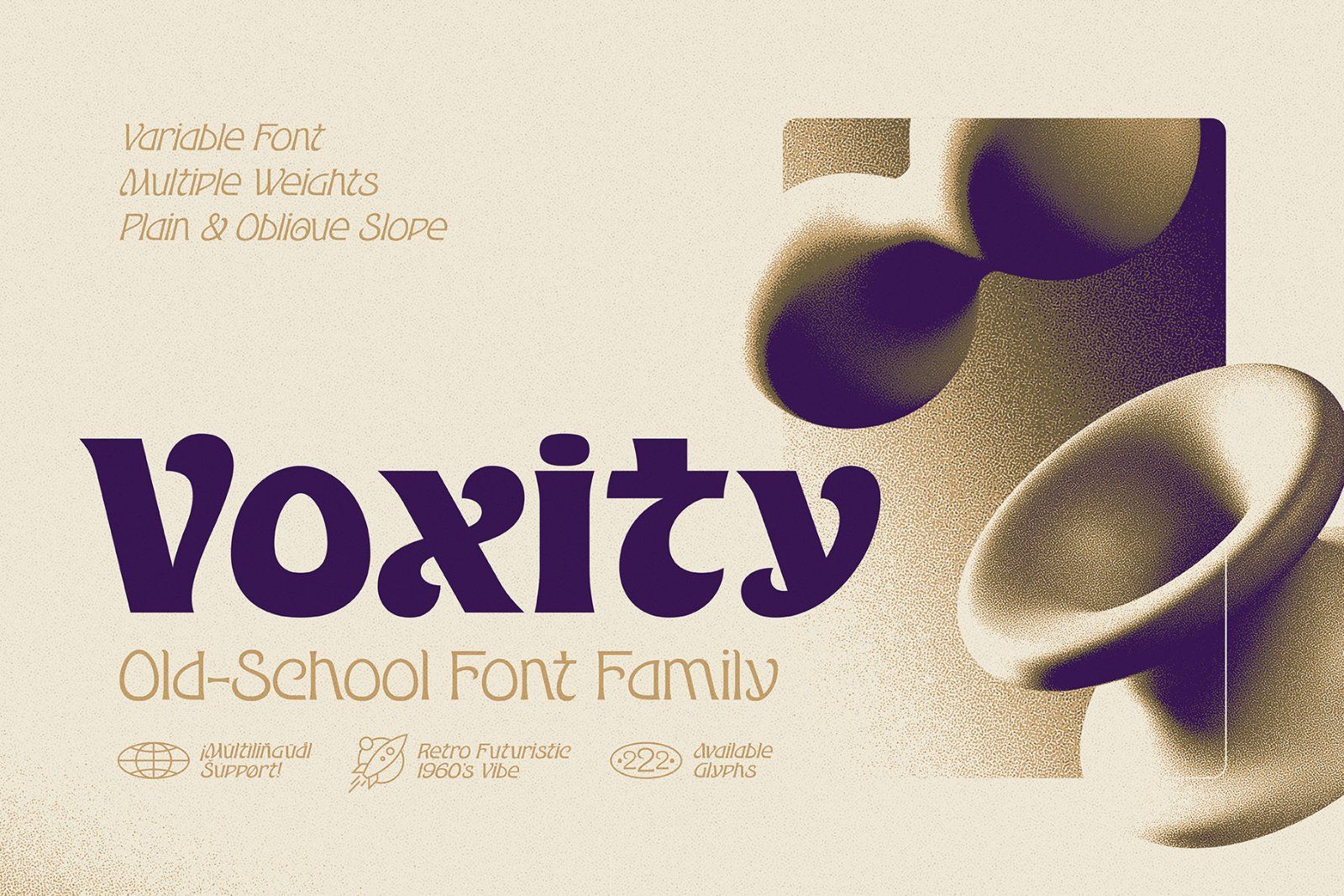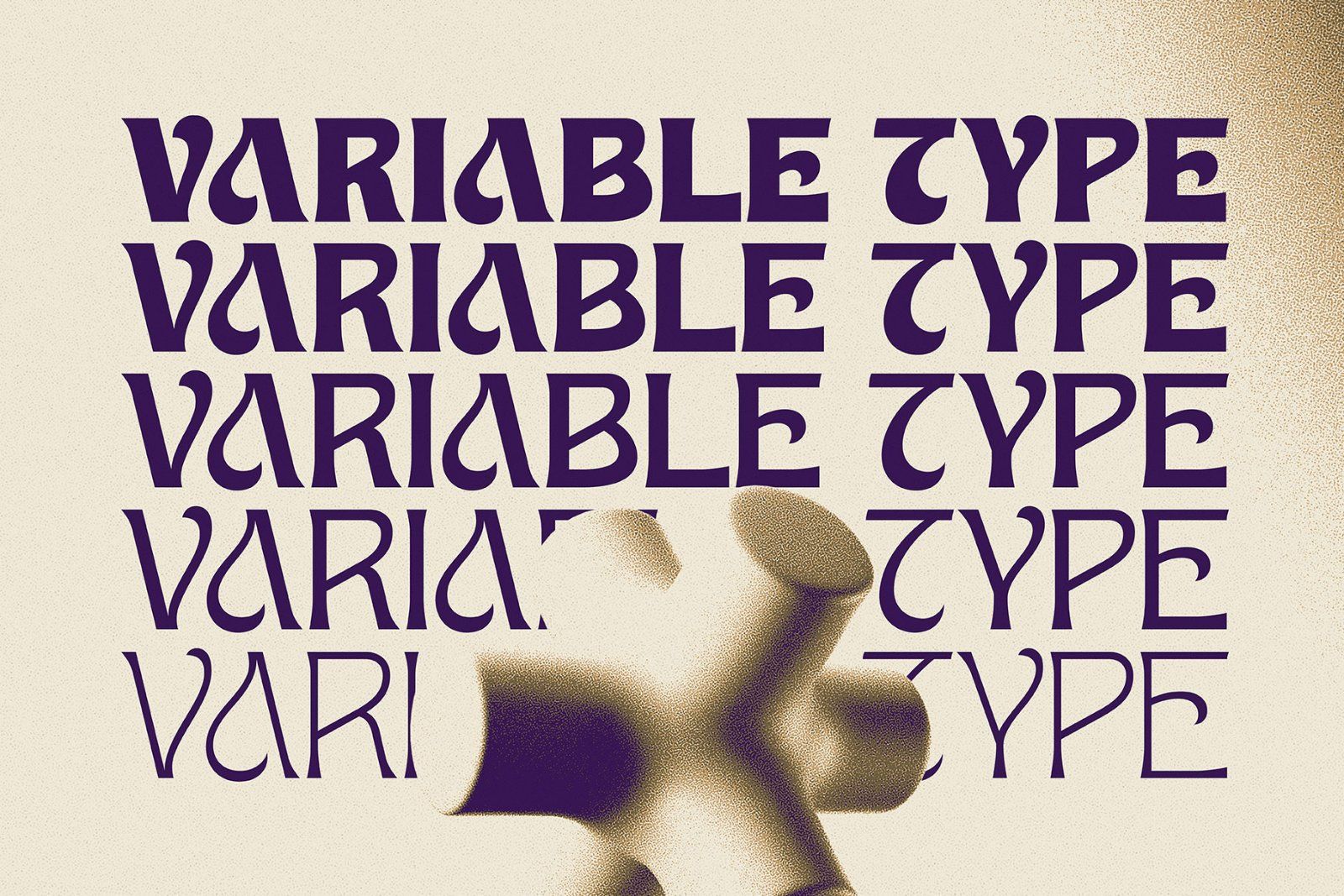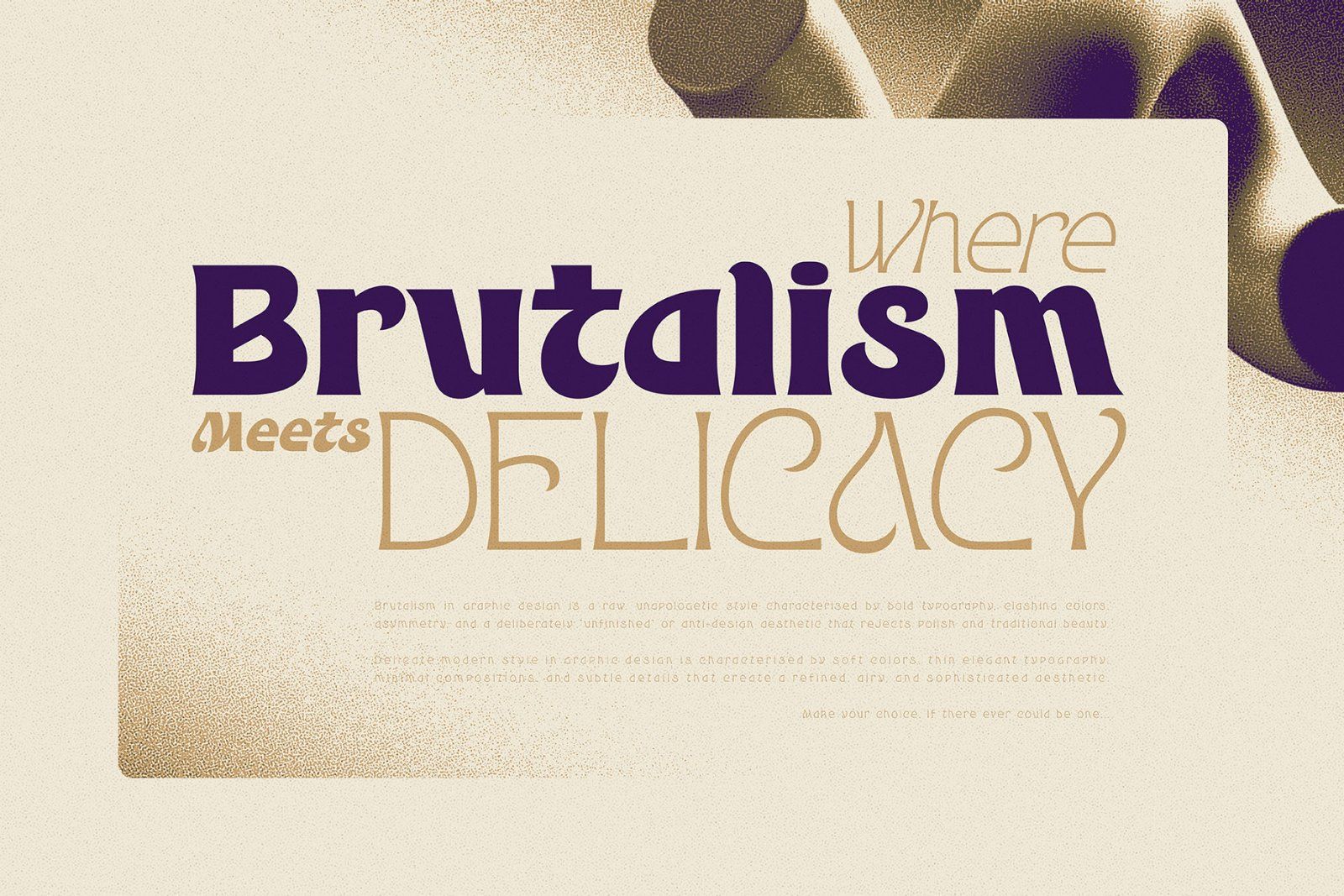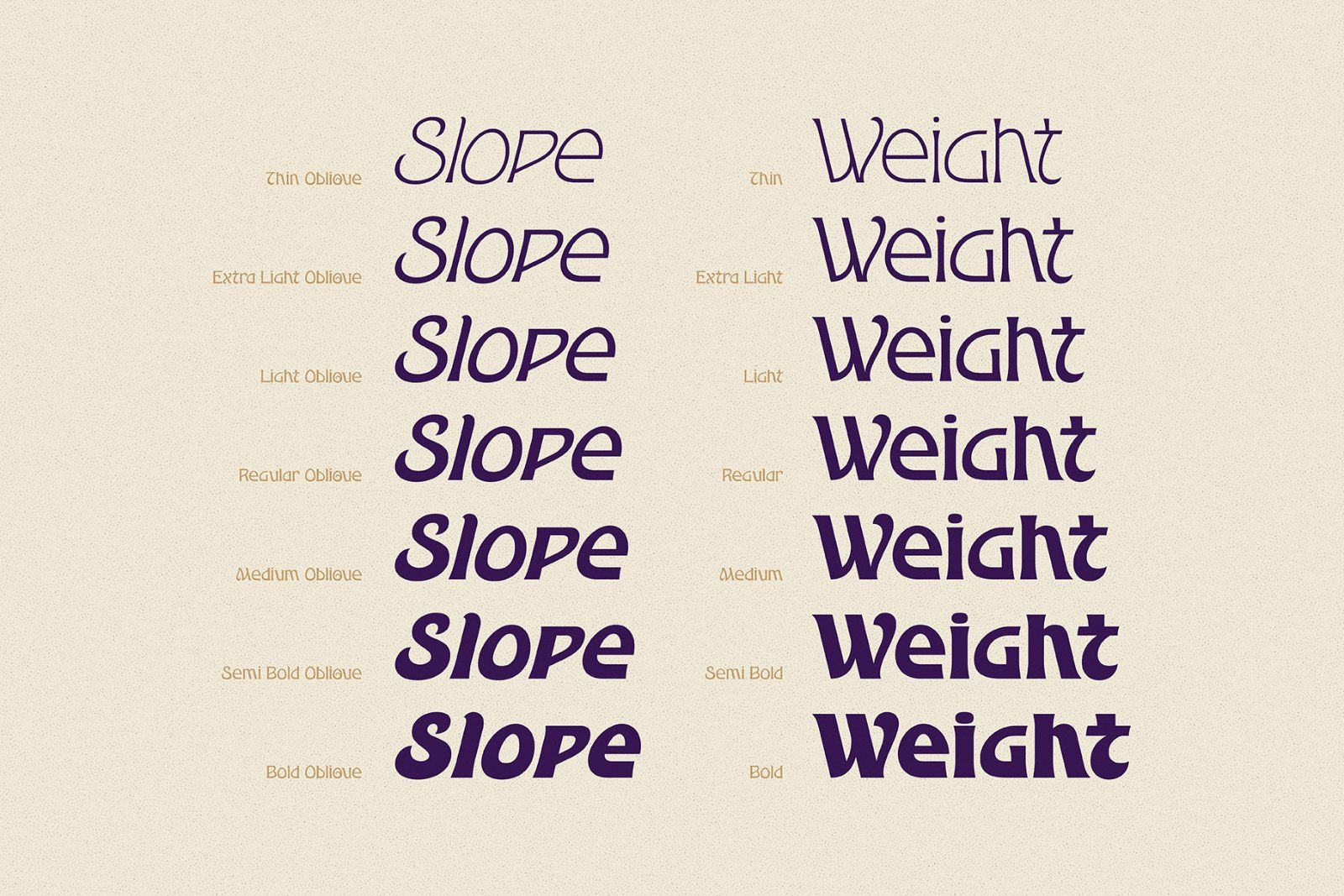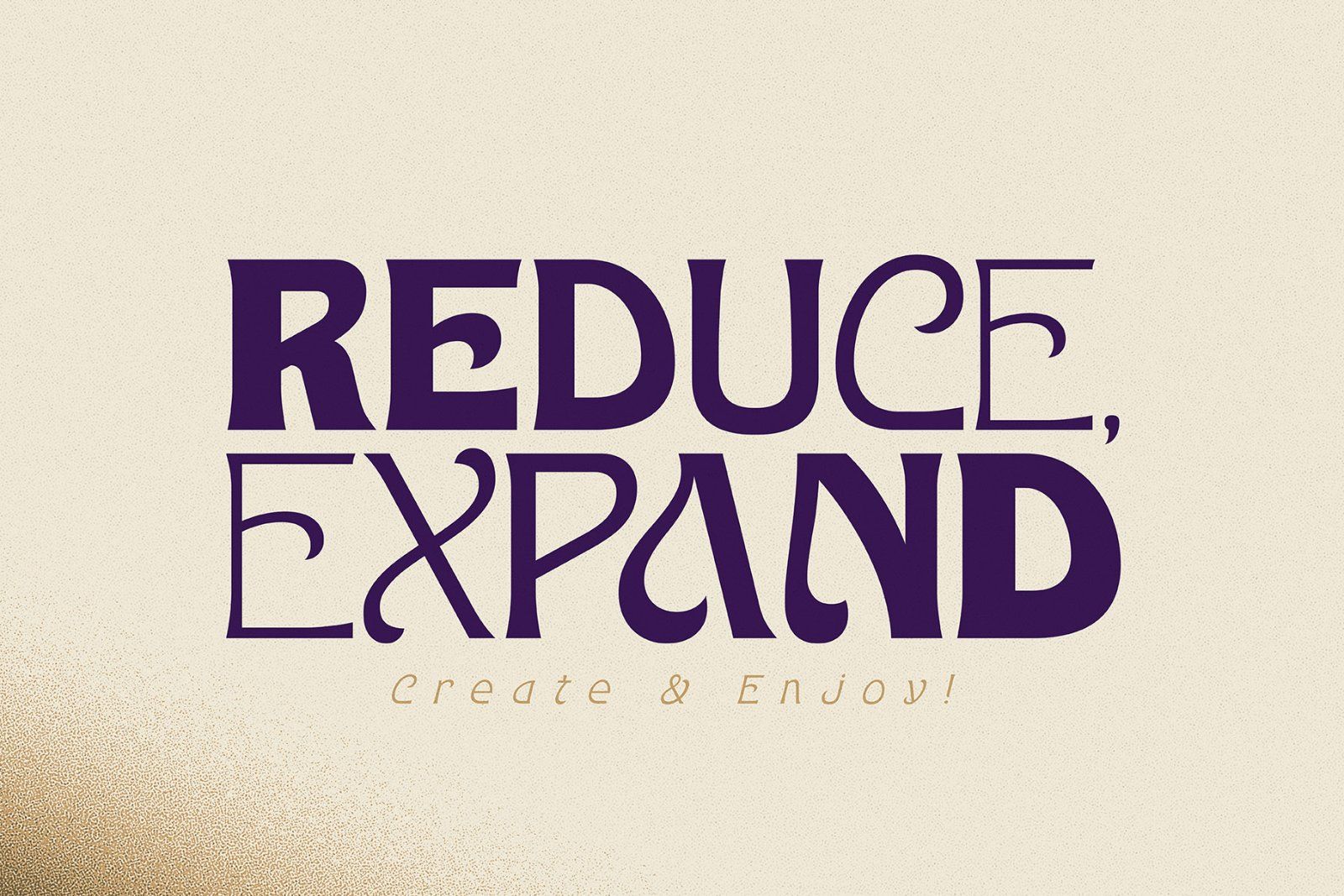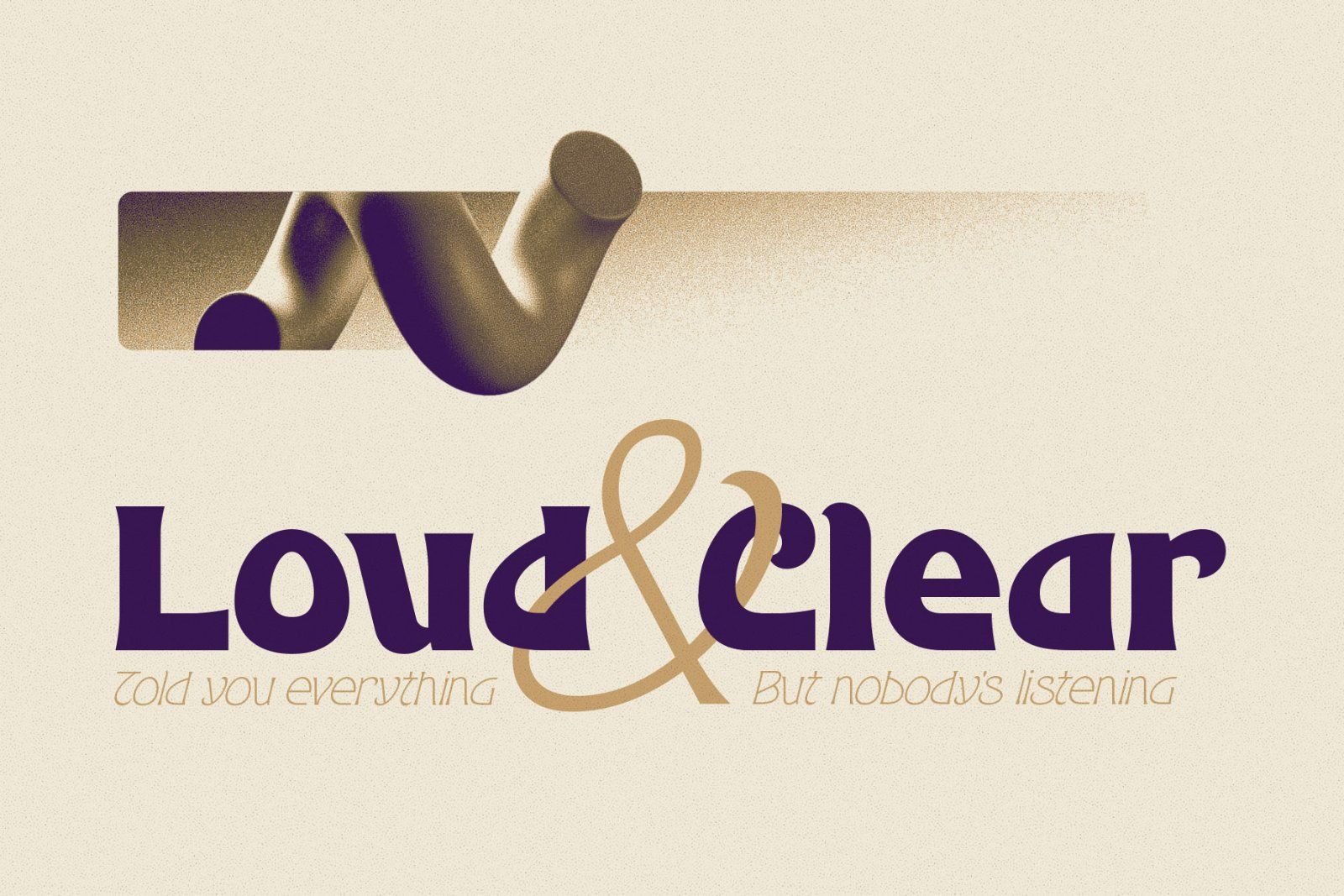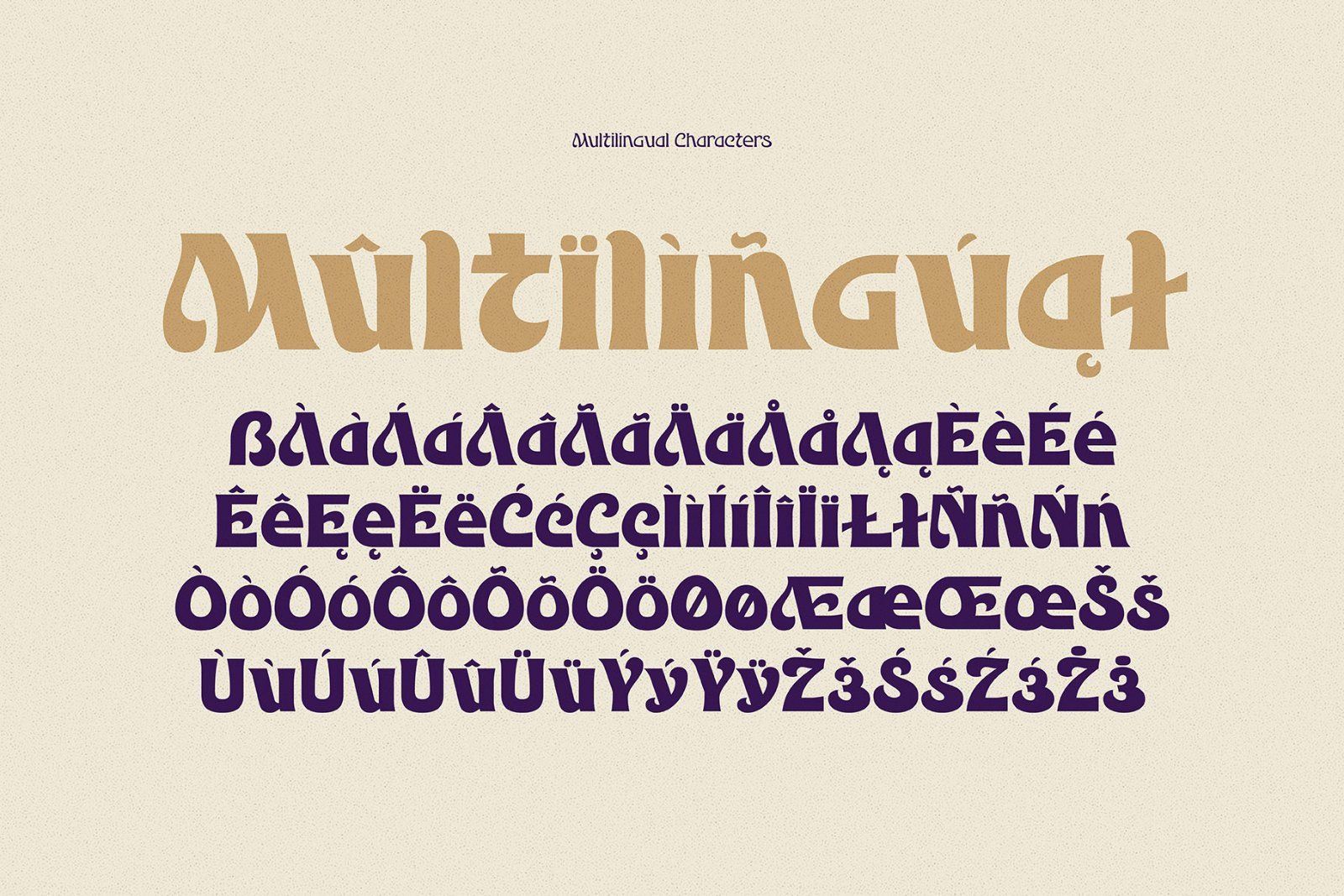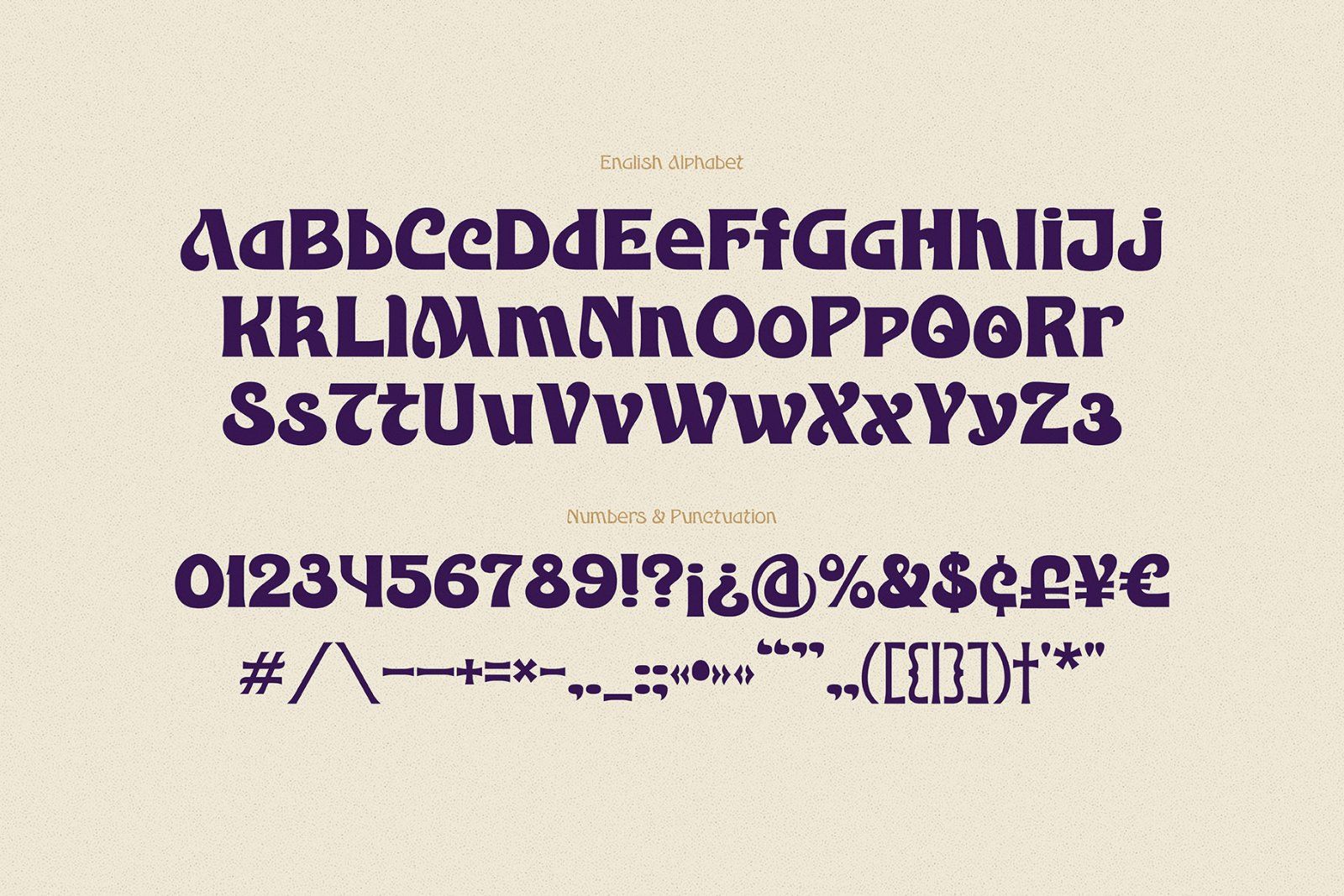
Introducing Voxity – a versatile and dynamic font family inspired by the bold typography of the 1960s. Blending vintage charm with a touch of retro-futurism, Voxity captures the essence of mid-century design while adding a fresh, contemporary twist.
Its distinctive shapes and unique character make it perfect for eye-catching headlines, branding, and creative projects that demand a nostalgic yet forward-thinking aesthetic.
Voxity font family set includes 14 typefaces with 7 weights for plain & oblique styles. Variable version includes all of the above mentioned types. Voxity has multilingual support, check out a screenshot with available characters.